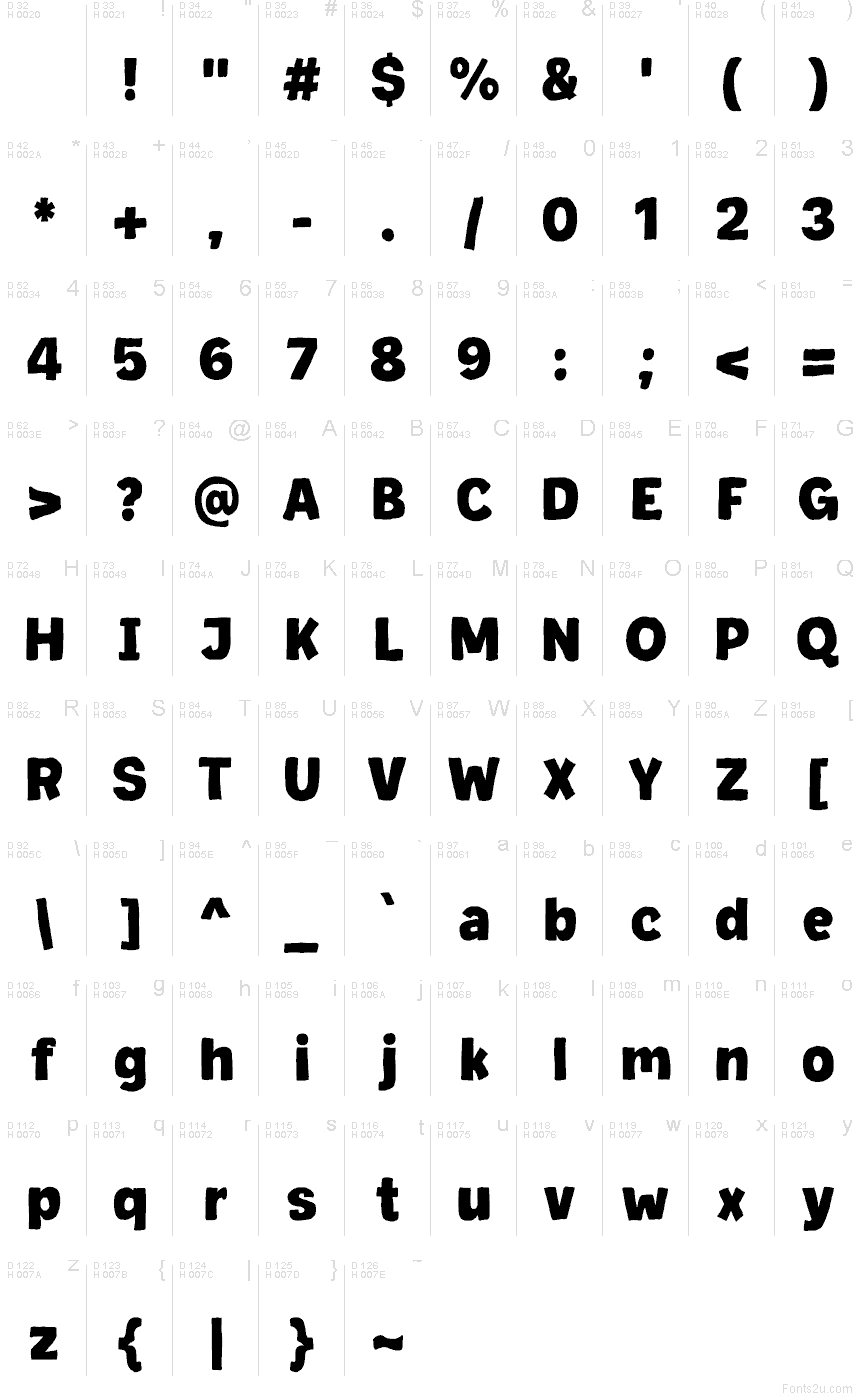
Sunrise Brown by MJType is a free cartoon display font with a chunky, hand-drawn bounce. The letters feel soft and squishy, with rounded corners, uneven edges, and a slightly wobbly rhythm that makes the whole font read playful rather than polished.
It fits kids' packaging, snack branding, comic-style headlines, cafe menus, poster titles, and social media cover lines where a friendly voice matters. As a free font, it works best in short bursts, because those thick, blobby shapes bring plenty of character to a wordmark, title card, or big callout without needing extra decoration.